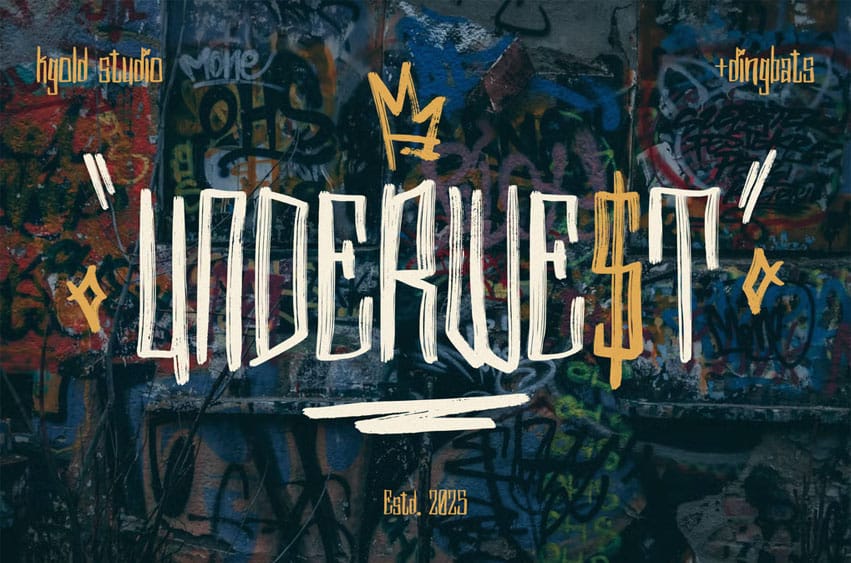
Underwest Font is a bold, narrow display font with a handcrafted urban edge. Inspired by vintage wall signage, industrial textures, and street art culture, this typeface brings attitude and character to any design project. Its tall, condensed letterforms are perfect for attention-grabbing headlines, posters, album covers, and branding that dares to stand out.
Whether you’re designing for music, fashion, or creative branding, Underwest adds a gritty, authentic feel with its unique personality and retro-inspired style.
- All caps & lowercase character set (A–Z, a–z)
- Numbers & punctuation
- Symbols & stylistic alternates
- Basic multilingual support
- Underwest dingbats
- Urban branding & streetwear
- Music & indie album covers
- Retro posters & signage
- Bold editorial design